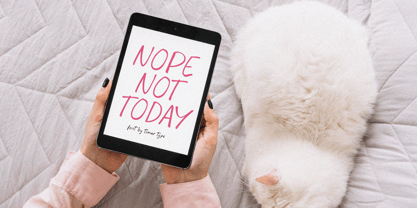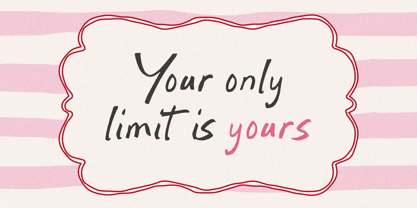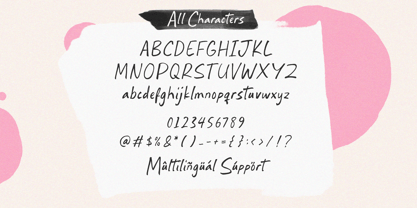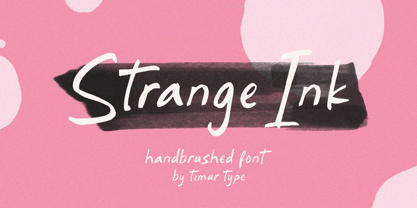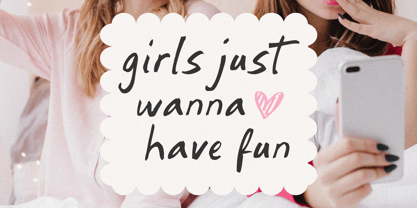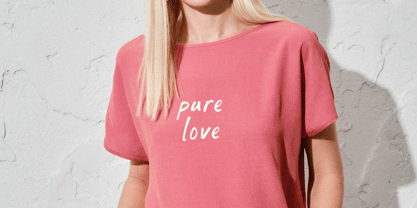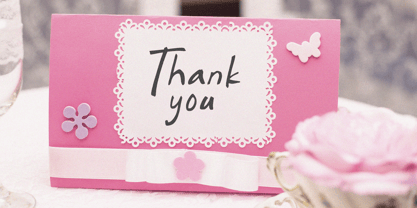
Strange Ink
by Timurtype
The Strange Ink Font Family was designed by Ibnu Nur Rahman and published by Timurtype. Strange Ink contains 1 styles. More about this family
Introduced by Timurtype Studio! Strange Ink is a Handbrushed Font This font is a handbrushed typeface that captures the raw, expressive feel of real brush strokes. Inspired by ink-on-paper techniques, it features irregular edges, dynamic textures, and slightly imperfect letterforms that give it an organic, handcrafted look. Like many brush fonts created with actual tools, its natural flow and varied stroke weight add character and authenticity, making it ideal for bold designs such as logos, posters, and artistic branding. Strange Ink Font also supports multilingualism Enhance your designs with our original fonts, feel free to comment or provide feedback, Enjoy the fonts 😊 Thank You